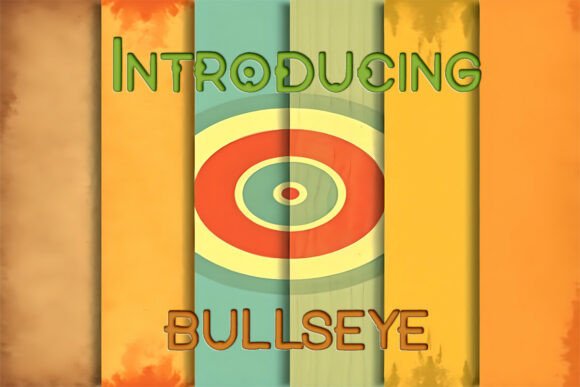
Unleash Your Creativity with Bullseye Font: The Ultimate Design Companion
Are you a designer, crafter, or creative enthusiast looking for a font that can elevate your projects to the next level? Look no further than Bullseye Font, a striking and versatile typeface that can add a touch of drama and personality to any design. In this article, we’ll explore the features and benefits of Bullseye Font, and how it can help you create stunning visual content that leaves a lasting impression.
The Power of Bullseye Font
Bullseye Font is more than just a font – it’s a design statement. Its unique and distinctive style makes it perfect for a wide range of creative projects, from dramatic shirt designs and stickers to unique branding schemes and captivating magazine layouts. Whether you’re a professional designer or a DIY crafter, Bullseye Font is the perfect companion to help you bring your ideas to life.
One of the best things about Bullseye Font is its versatility. It can be used in a variety of creative projects, including:
- Shirt Designs: Create eye-catching apparel with Bullseye Font’s bold and striking style.
- Stickers: Add a touch of personality to your stickers with this unique and distinctive font.
- Branding Schemes: Establish a strong brand identity with Bullseye Font’s confident and assertive style.
- Magazine Layouts: Create captivating magazine layouts that grab attention and leave a lasting impression.
- SVG Files: Complement your SVG files with Bullseye Font’s charm and add an extra layer of creativity to your designs.
- Greeting Cards: Add a personal touch to your greeting cards with this beautiful and elegant font.
- Cricut Projects: Bring an innovative twist to your Cricut projects and posters with Bullseye Font’s unique style.
- Social Media Posts: Transform your social media posts with Bullseye Font’s engaging and distinctive style, giving them a unique personality that stands out.
Why Choose Bullseye Font?
So why choose Bullseye Font over other fonts? Here are just a few reasons:
- Unique Style: Bullseye Font has a distinctive style that sets it apart from other fonts.
- Versatility: It can be used in a wide range of creative projects, from design and crafting to branding and marketing.
- High-Quality Design: It was designed with high-quality and clarity in mind, ensuring that your designs look professional and polished.
Tips for Using Bullseye Font
Here are a few tips for getting the most out of Bullseye Font:
- Experiment with Different Sizes: Try out different font sizes to see how Bullseye Font looks in different contexts.
- Pair it with Other Fonts: Combine Bullseye Font with other fonts to create a unique and interesting design.
- Use it for Headlines: Bullseye Font is perfect for headlines and titles, where its bold and striking style can really make an impact.
- Don’t be Afraid to Get Creative: Bullseye Font is a versatile font that can be used in many different ways, so don’t be afraid to experiment and try new things.
In conclusion, Bullseye Font is a powerful and versatile design tool that can help you take your creative projects to the next level. With its unique style, ease of use, and high-quality design, it’s the perfect companion for designers, crafters, and creative enthusiasts. Whether you’re looking to create stunning visual content, establish a strong brand identity, or simply add a touch of personality to your designs, Bullseye Font is the perfect choice. So why wait? Immerse your creative projects in the striking essence of Bullseye Font and see the impact it can have.